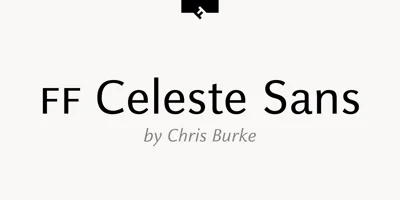
FF Celeste Sans Font
FF Celeste Sans Font is perfect for celestial astronomy publications, spiritual wellness branding, heavenly event planning, stargazing center materials, angelic product packaging, and ethereal design projects. Its divine character makes it ideal for observatories, meditation centers, spiritual retreat venues, astronomy clubs, and any application requiring luminous typography that conveys cosmic wonder, heavenly beauty, and transcendent spiritual connection.
FF Celeste Sans Font is exciting because it captures the ethereal grace of celestial bodies through delicately balanced letterforms that evoke the gentle luminosity of stars and the serene beauty of heavenly spheres. Its harmonious proportions and refined elegance reflect the perfect order found in astronomical phenomena, making it ideal for organizations seeking to convey spiritual elevation and cosmic awareness. The font's celestial character transforms earthly communications into divine expressions of universal harmony.
FF Celeste Sans Font family includes heavenly weight variations typically featuring Light, Regular, Medium, and Bold options with graceful italic styles that mirror celestial movement. The family often incorporates astronomical symbols, spiritual ornaments, and cosmic character sets designed for transcendent applications, providing designers with comprehensive tools for creating authentic, celestially-inspired typographic experiences.
When selecting celestial typography solutions, FF Celeste Sans Font represents an exceptional choice for spiritual and astronomical projects. This luminous typeface brings instant cosmic authenticity to any design, making it invaluable for spiritual organizations, astronomy educators, and wellness brands celebrating universal connection. Whether you're developing meditation center branding, creating astronomical educational materials, or designing spiritual wellness campaigns, FF Celeste Sans Font provides the heavenly elegance and cosmic inspiration essential for connecting with audiences seeking transcendent experiences in today's spiritually-conscious marketplace.